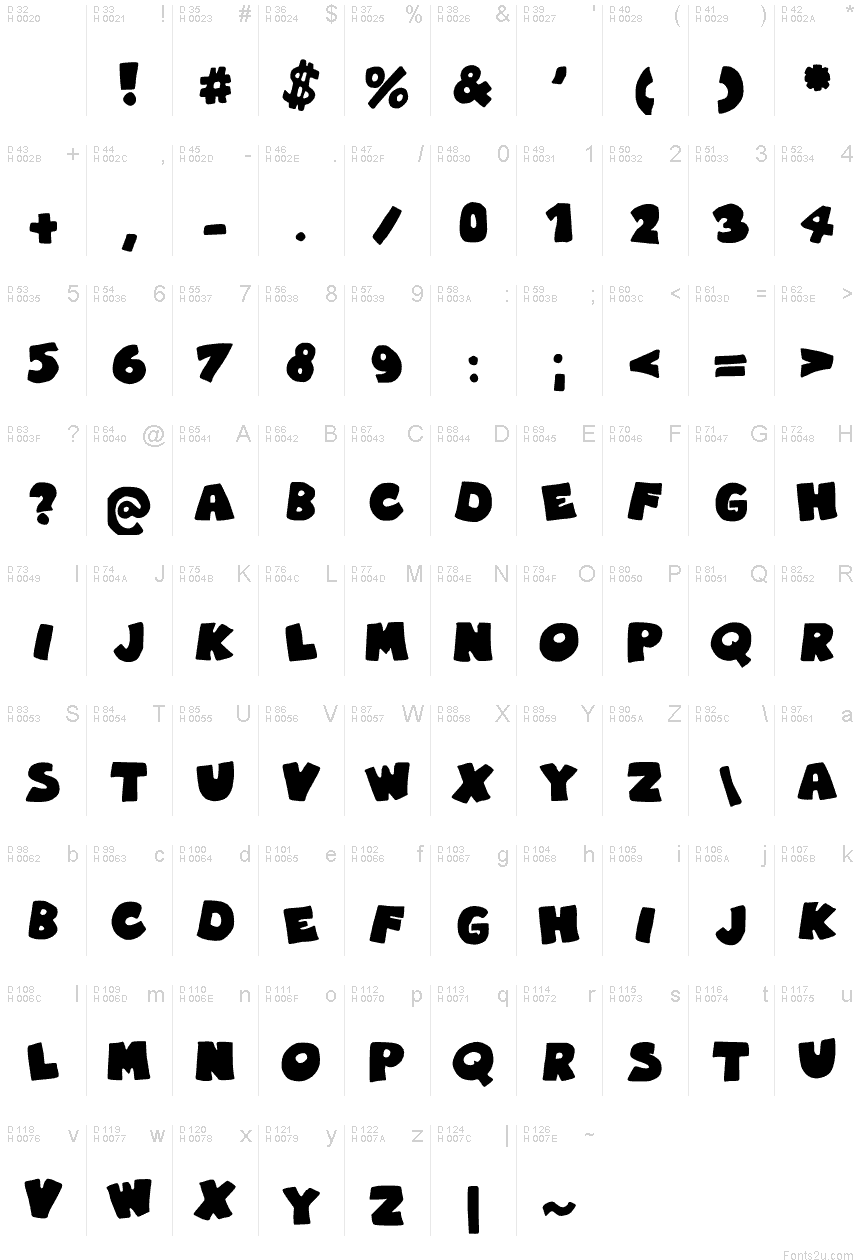
RobinGraffitiFilledin
Robin Graffiti Filledin from MyScriptFont.com is a free graffiti script with broad, uneven letters and a dense painted silhouette. Small openings and blunt curves give the lettering a quirky homemade stamp quality.
Youth-focused music and streetwear brands could use its unruly forms for merchandise, posters, and event graphics. The warped shapes also suit skate graphics and playful food packaging, where the lettering can become part of an illustrated mural, sticker cluster, or hand-painted shop sign rather than serving as neutral text.